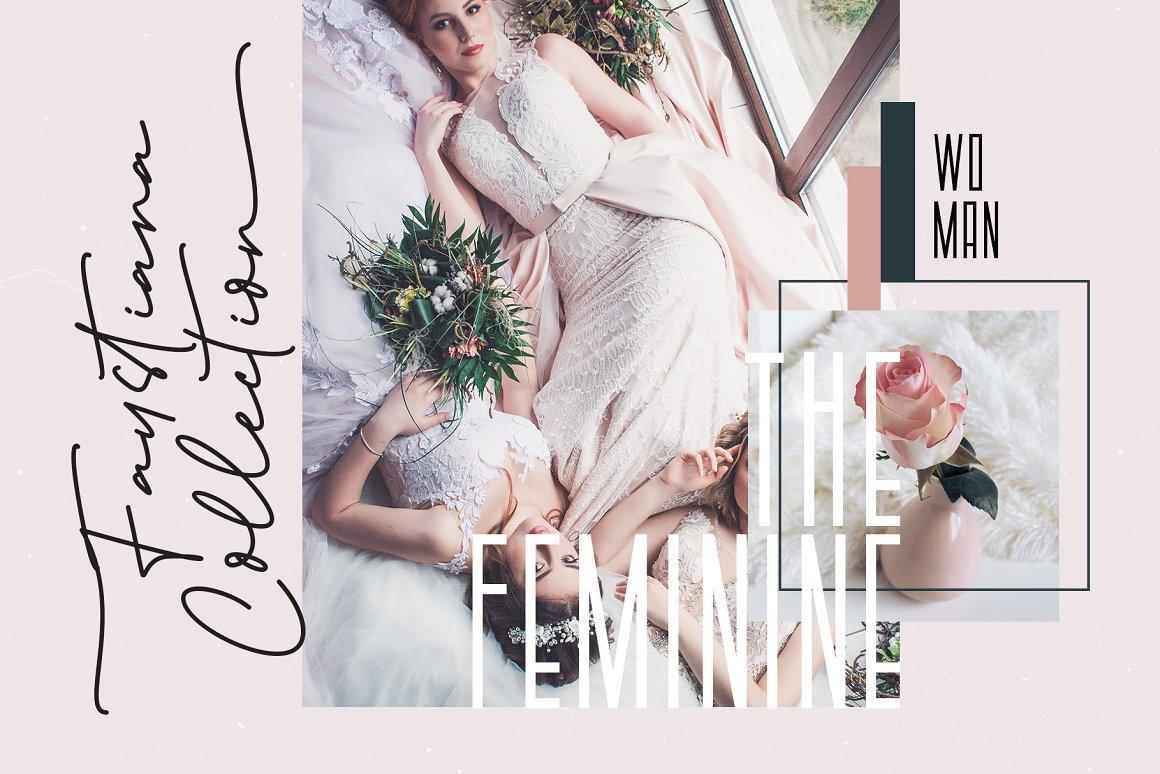
Introducing Austin Pen Font is a font duo with elegan script font and strong sans font this font gives a natural & stylish flow with classy feminine touch in your project.
This collection of scripts is this works well for many applications. Everything for any design project such as logos & branding, invitation, stationery, wedding designs, social media posts, advertisements, product packaging, product designs, label, photography, watermark, special events or anything that need that authentic handwriting taste and you could benefit from this collection of signature fonts.
The Script: This font have a feminine signature style with 16 ligature and swashes in all letter
The Sans:Â The sans is the all caps and this font have stronger style and this font very suitable for script font combination